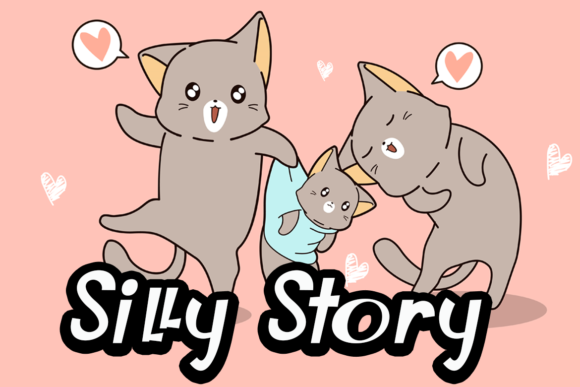
Behold, Silly Story Font, the enchanting display font designed to spark joy and creativity! Its playful characters dance across the screen, captivating young minds and adding a touch of whimsy to every project.
Journey into a world where letters transform into delightful characters, inviting children to embark on a magical adventure. Each stroke and curve of Silly Story Font is meticulously crafted to evoke a sense of wonder and excitement. Watch as imaginations soar and stories come to life with this extraordinary font.
The possibilities are endless with Silly Story Font. Let your little ones craft personalized greeting cards, design vibrant posters for school projects, or create eye-catching social media posts that will make their friends smile. This font is the perfect companion for any creative endeavor, adding a touch of magic to every project.
Step into a world where learning and fun collide. Silly Story Font's charming design engages young minds, making even the most mundane tasks feel like an exciting adventure. With its playful shapes and cheerful vibe, this font transforms ordinary words into captivating stories, inspiring creativity and igniting a passion for writing.
Embrace the magic of Silly Story Font and watch as your child's imagination takes flight. Its enchanting characters will inspire them to dream big, explore new possibilities, and express themselves in ways they never thought possible. Let their creativity flow freely as they embark on a journey of self-expression with this remarkable font.